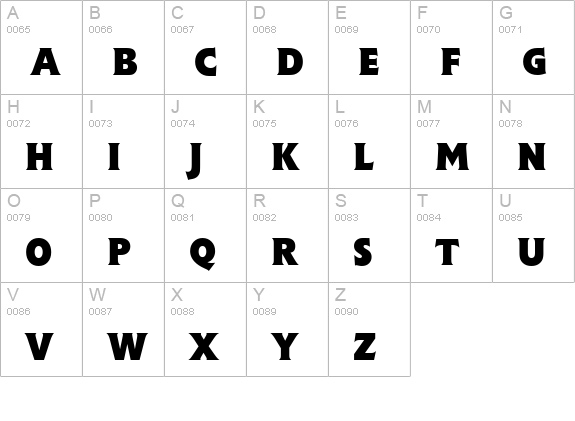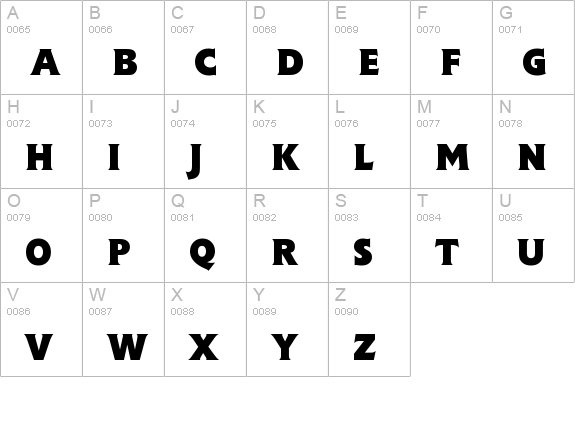
Frascati-Bold is a strong, high-contrast variant in the Frascati typeface family \xE2\x80\x94 well suited to headlines, attention-grabbing titles, and strong calls-to-action.
Frascati-Bold is a modern and stylish font that exudes confidence and sophistication. With its bold, strong lines and sharp edges, this typeface commands attention and makes a bold statement in any design project. Perfect for headings, titles, and branding, Frascati-Bold adds a touch of elegance and professionalism to your work. What makes Frascati-Bold even more appealing is that it is completely free to download at FontsMarket.com. This means you can easily access and use this stunning font in your projects without any cost. So why wait? Enhance your designs with the striking Frascati-Bold font today and make a lasting impression.